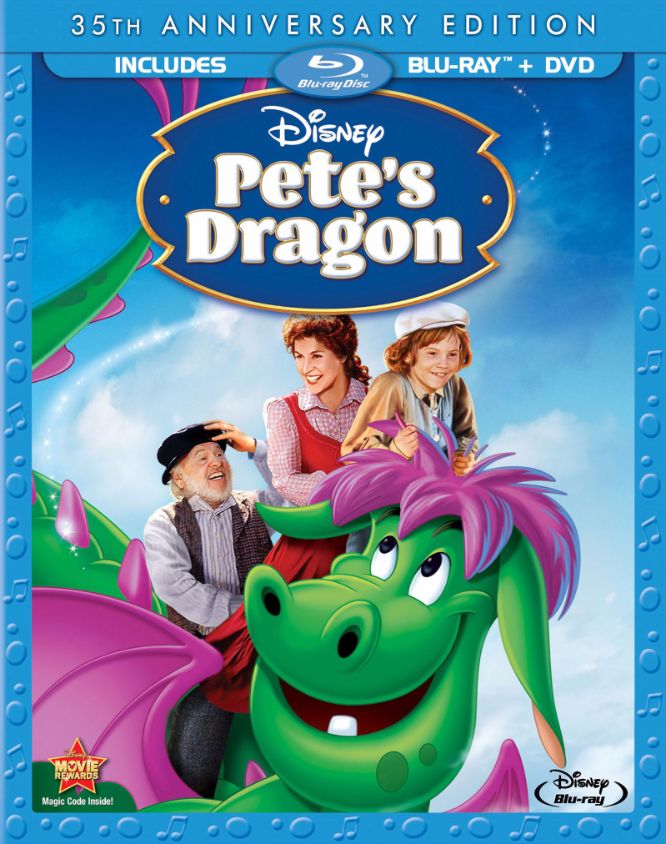
Pete's Dragon [Movie] Font
AnimationPete’s Dragon is a 2016 live-action/animated musical film about a young orphan named Pete who befriends an enormous, magical dragon named Elliot. The film is a retelling of the 1977 animated film of the same name.
The Pete’s Dragon title on the cover uses a heavy brush typeface called Barricada, designed by Elí Castellanos Chávez. Barricada features small counters and curved serifs that give the letters a playful feel. Walt Disney Pictures made a remake of the movie in 2016. Here are two similar fonts we found that might suit the film title Edwardian EF Extra Bold by Colin Brignall, and Matrix II Extra Bold from Emigre.